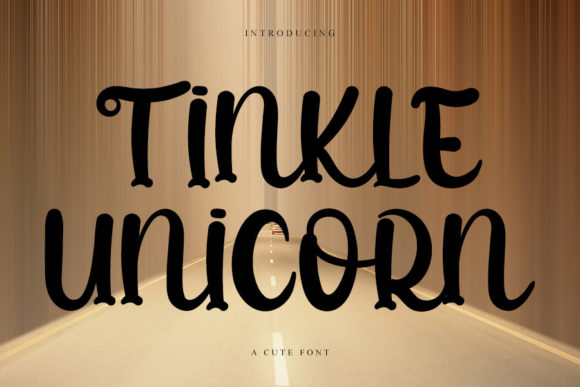
In a world saturated with digital noise, your designs demand a voice – one that speaks with clarity, elegance, and a touch of whimsy. Meet Tinkle Unicorn, the serif font that effortlessly harmonizes with the aesthetics of clean, modern design. Crafted by the visionary artists at Inermedia STUDIO, Tinkle Unicorn is a testament to the enduring allure of classic calligraphy, reimagined for the digital age.
With its meticulously balanced strokes, Tinkle Unicorn dances across the screen, exuding confidence and sophistication. Its forms are carefully considered, neither too thin nor too thick, ensuring optimal legibility and visual appeal, even in the smallest of sizes.ornate flourishes, Tinkle Unicorn adds a touch of understated elegance to any project, whether it's a website, a logo, or a social media post.
But Tinkle Unicorn is not merely a pretty face. It's a font that's as versatile as it is beautiful. Whether you're crafting a minimalist design or a more ornate composition, Tinkle Unicorn seamlessly adapts, enhancing your message with its inherent grace and charm. Whether you're a seasoned designer or just starting out, Tinkle Unicorn is the perfect companion for your creative journey. Its intuitive nature makes it easy to use, allowing you to focus on your vision without getting bogged down in technicalities.
When you choose Tinkle Unicorn, you're not just downloading a font – you're investing in a timeless design tool that will elevate your projects for years to come. So why settle for ordinary when you can embrace the extraordinary? Let Tinkle Unicorn be your muse, your guiding light, as you create designs that captivate and inspire.